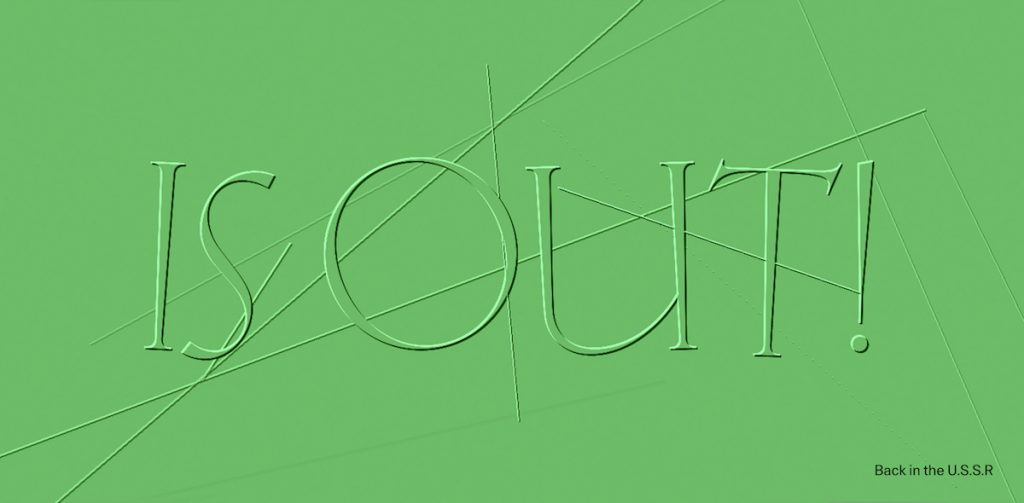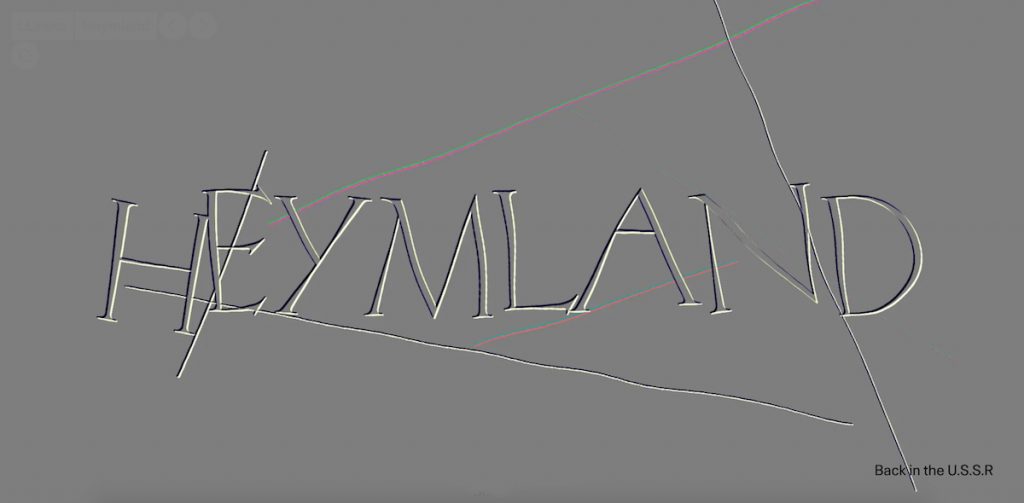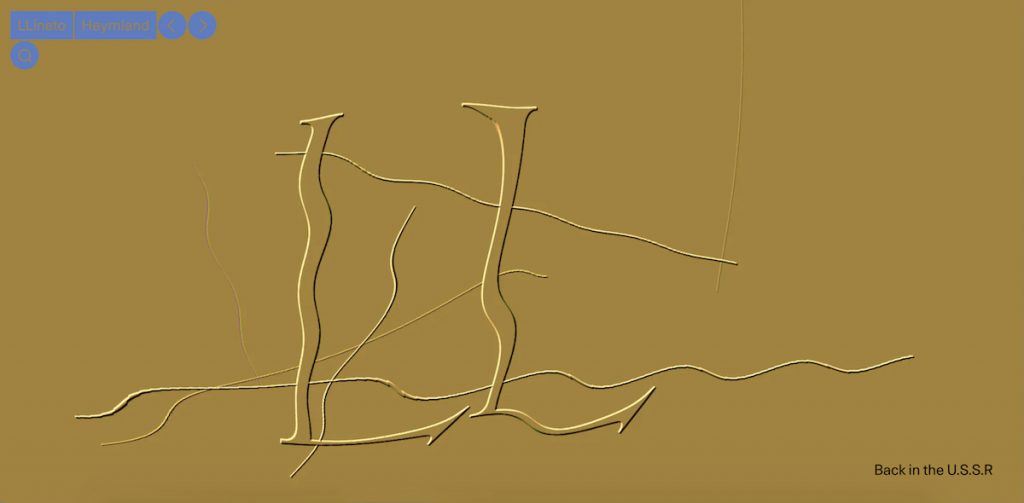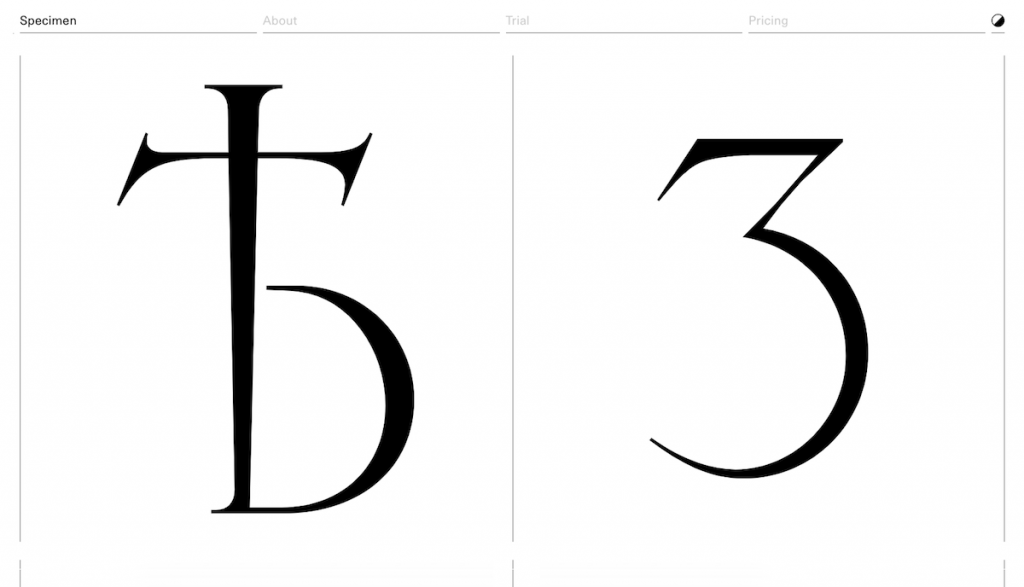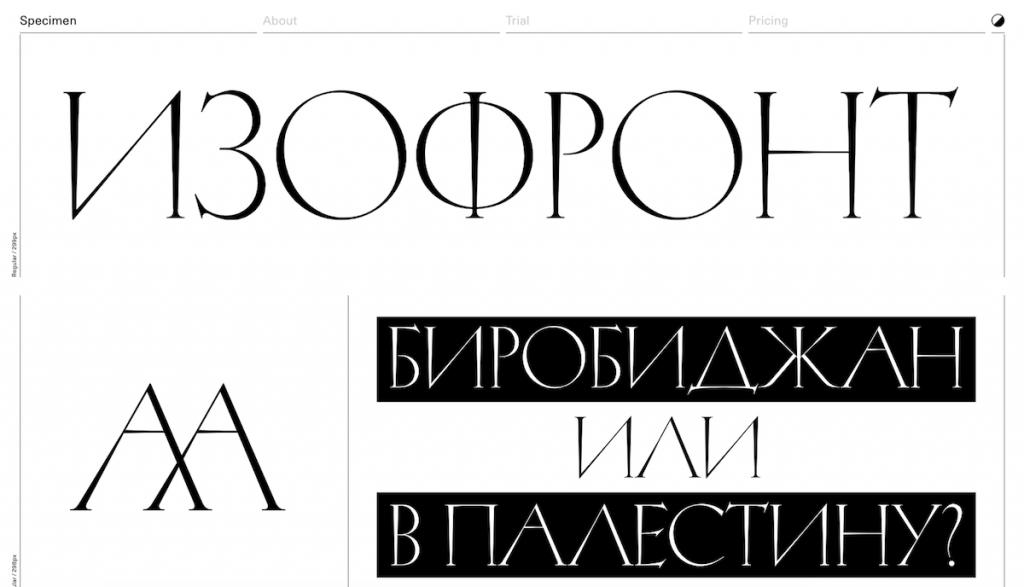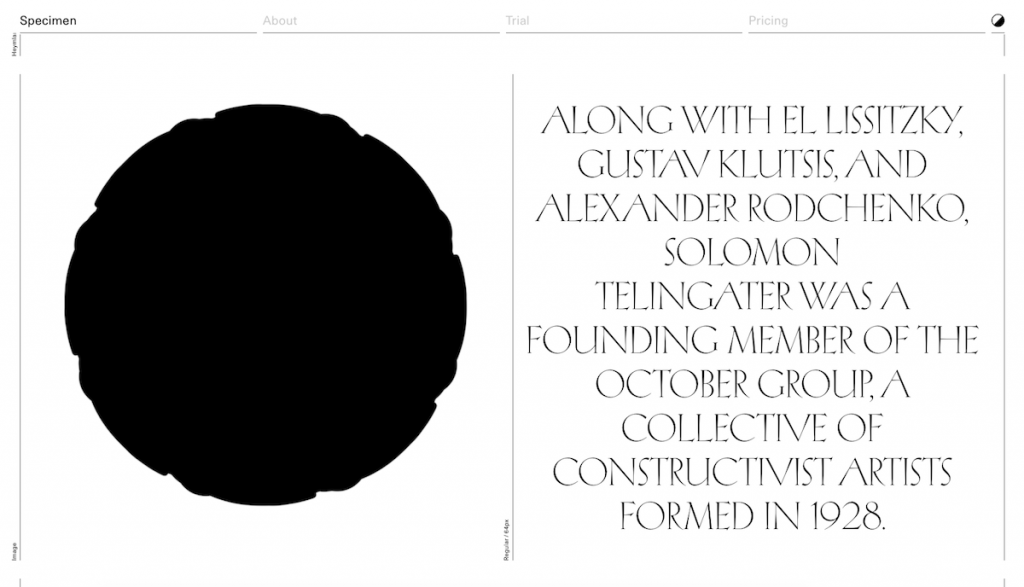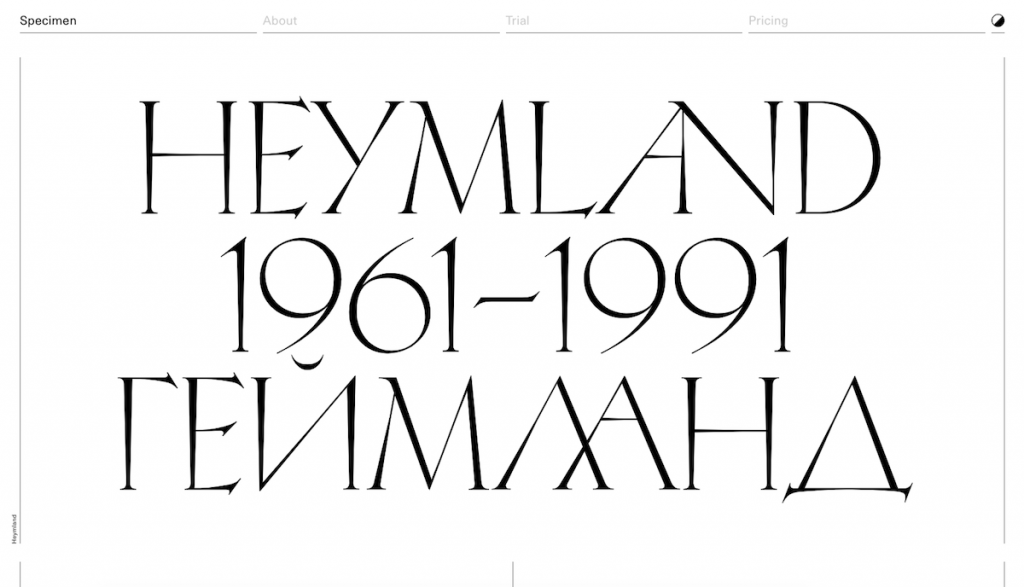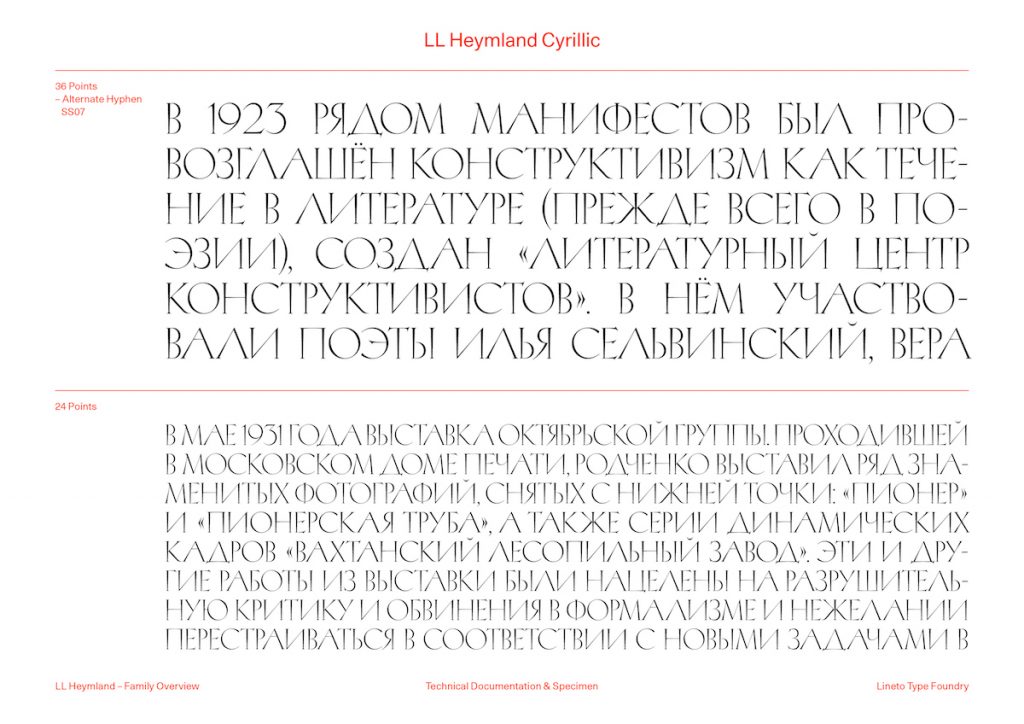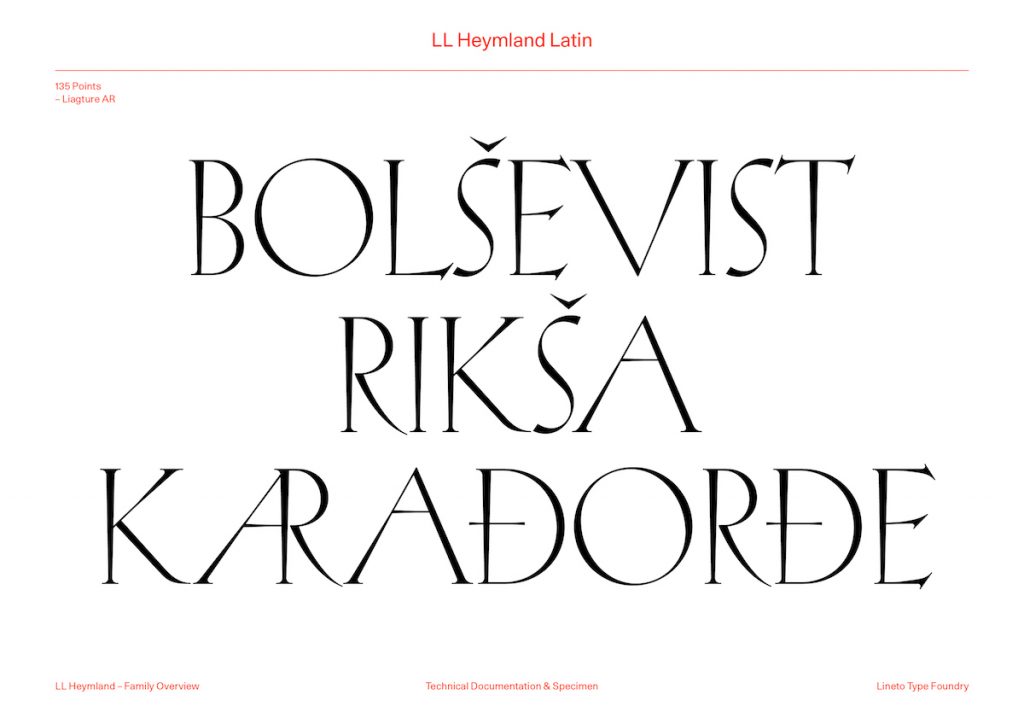
Name: LL Heymland
Designer: Yevgeniy Anfalov
Foundry: Lineto
Release Date: September 2020
Back Story: Yevgeniy Anfalov began work on what was to become LL Heymland back in the summer of 2018, after being commissioned to propose a design for a “gastronomic guidebook.” He wanted to use a lightweight type style that would completely fill double page spreads, and after searching for one in vein, the only thing left to do was to draw it himself. In digging through his reference collections, he stumbled upon a calligraphic study sketch of an alphabet referencing Koch-Antiqua, a decorative serif designed by Rudolf Koch and first published by Klingspor Type Foundry in 1922.
Anfalov found the calligraphic study in the estate of Soviet graphic artist Solomon Telingater, a co-founder of the Constructivist October Group along with the likes of Aleksandr Rodchenko and El Lissitzky. And yet, “the sketch was anything but Constructivist,” says Anfalov. “It looked more as though it originated in the 1960s.” He admired its “monumental and decorative character,” and was curious about the artist’s volte-face from the circles of Constructivism to more grandiose, Roman styles.
The more he looked into the sketch, the more Anfalov became intrigued by Telingater’s biography. He found that unlike many revolutionary artists in the USSR, Telingater managed to survive the restraints put on all kinds of creative output under Stalin and WWII, and was constantly working in book and lettering design, as well as illustration. “His visual language has changed from the radical Constructivist to more applied-decorative,” says Anfalov, adding that it may have been a survival strategy. During the 1950s, Telingater focused on type design, creating fonts including Akzidentnaya and Titulnaya.
While doubts have been cast over whether the sketch Anfalov discovered was actually created by Telingater, the designer was “much more charmed by this sketch than the original Koch-Antiqua. It was hand-written with a sharp-nib pen and—against the very idea of calligraphy—was after-corrected with white gouache. This was exactly how I sketched my own designs. It was made in a more reserved and reductionist manner, and I decided to push my digital version further in this direction.”
Why’s it called Heymland? “The name Heymland refers to my origins,” Anfalov explains. “Sovetish Heymland” means “Soviet Homeland” in Yiddish, and it was also the name of a Yiddish-language literary and political journal published by poet Aron Vergelis in Moscow from 1961 to 1965. Telingater had designed its first issue.
What are its distinguishing characteristics? One of Anfalov’s biggest tasks was creating new glyphs to expand the character set to contain numerals and a Cyrillic script, since the original only featured Latin lettering. Having sought out more historical references to inform the designs, he landed on a “3” that reminded him of the hammer and sickle symbol first adapted during the Russian Revolution. Among the other unusual glyphs are an unusually exaggerated “Y.”
Drawing on the hand-rendered source material that inspired LL Heymland, Anfalov combined this with a more “constructed digital approach,” he says. “I removed many superfluous details and reconstructed the shapes according to a unified system.” The font is caps-only, aiming to be a “texture-builder” that takes up space. “In this case, lowercase letters would cause white gaps between the lines, and I wanted to avoid this,” says Anfalov. Lineto’s release also features a number of stylistic character sets that reference historical forms from the early 20th century, including dieresis [diacritic] dots placed on the glyphs’ sides, calligraphic dashes, an ampersand and even in the Roman lettering, “a ‘Russian-looking’ Ж and K,” as Anfalov puts it.
What should I use it for? Since LL Heymland is all-caps and boasts many unusual flourishes and extra glyphs, it’s a great font for applications that can hero typography such as record covers, T-shirts, or magazine headlines. “I encourage designers setting this type generously, it’s one of a kind,” says Anfalov. It’s already been shown off as part of collaboration with Studio Ard on the 49th issue of art magazine Tate Etc., which came out this summer. A number of Anfalov’s designer-friends were given licenses to try out the font, and it has proven a dream for posters (as used by Jan & Randoald for LUCA School of Arts Ghent, Belgium), garments, a scarf packaging project, an art installation by Oliver Klimpel at Kunsthaus Graz, on record covers for archive label Shukai, and by Aleksandar Todorovic for Balkan cultural heritage project called Balkanophobia.
What other fonts might it pair well with? “I guess, something ‘neutral’,” Anfalov suggests, adding that “It already has a lot of character, so it can be used alone.” When used in headlines, he suggests it can work well with body copy set in Supreme , Lineto’s new version of Futura: “Like in Heymland, Futura’s uppercase letters have pronounced Capitalis Monumentalis proportions so there can be a good interaction between them,” he says. “It needs a strong antagonist (set in the same size) to create contrast and tension.” The stately but contemporary feel of LL Heymland lends itself nicely to both serif and sans serif fonts. In keeping with the idea of neutrality, we would suggest fonts along the lines of Good Sans, PM Grotesk, Helvetica Now, FS Split Sans, or Finder.